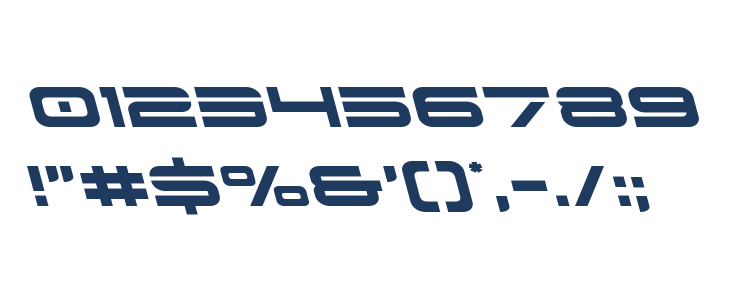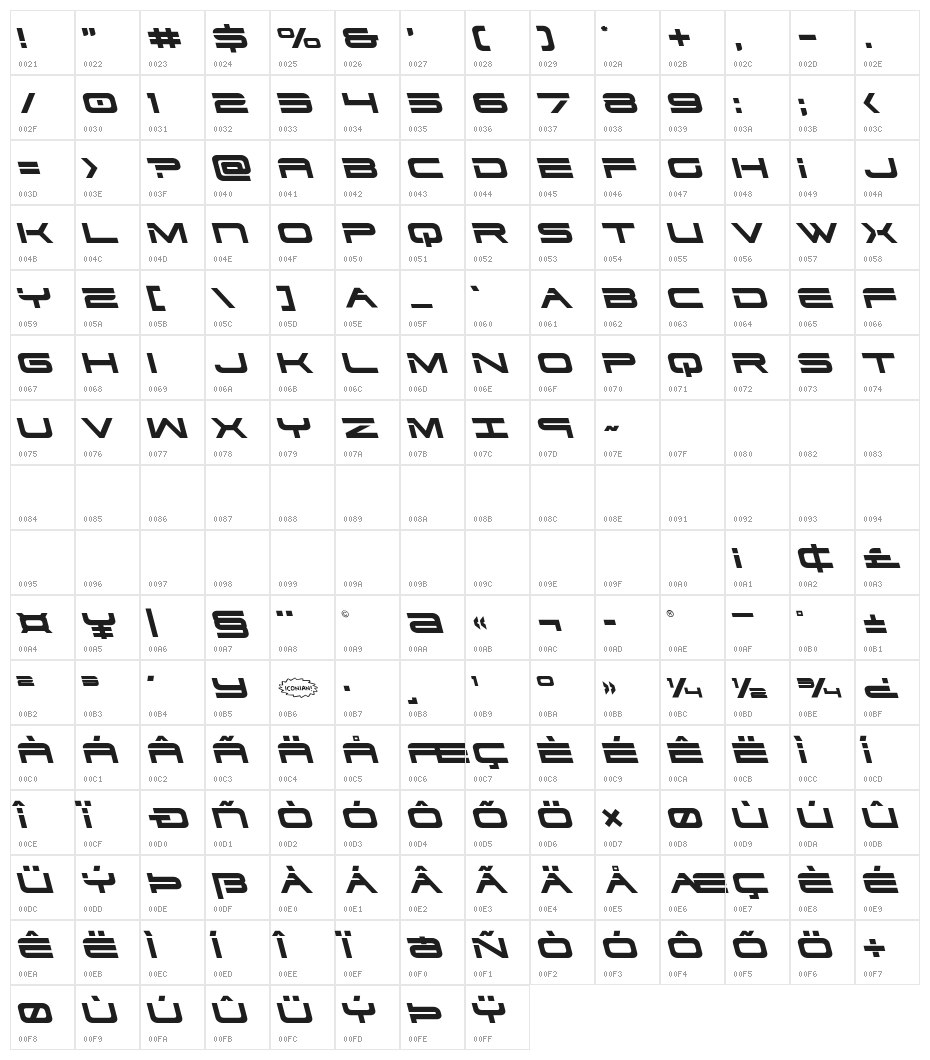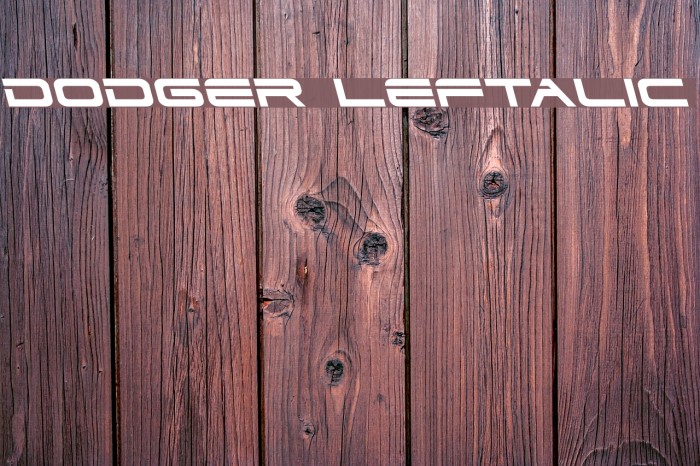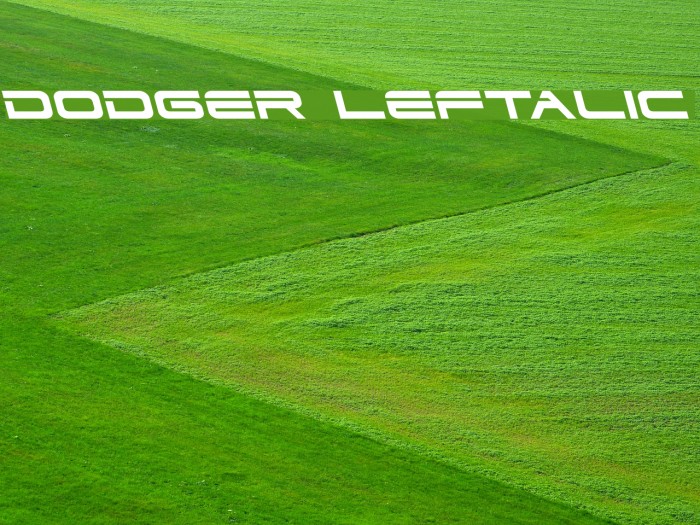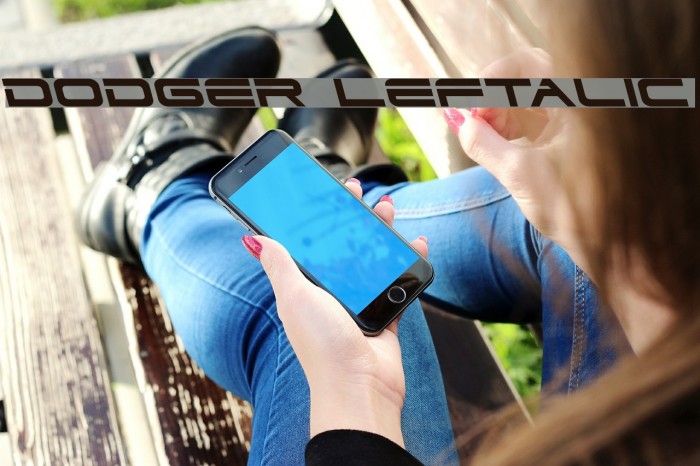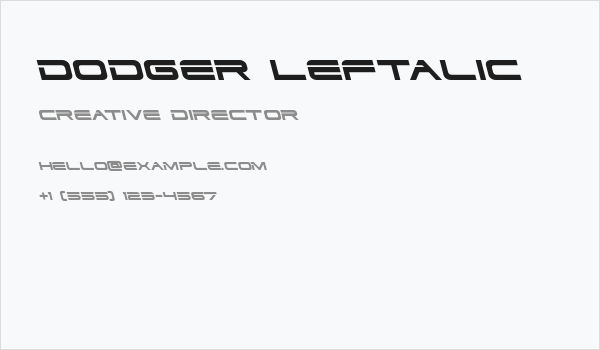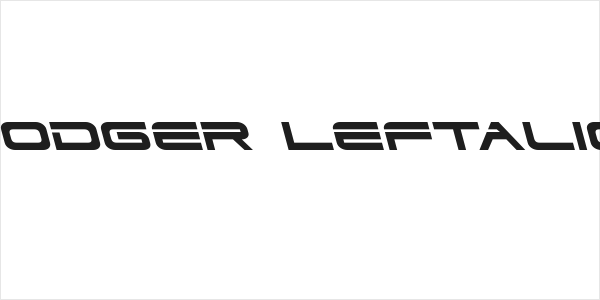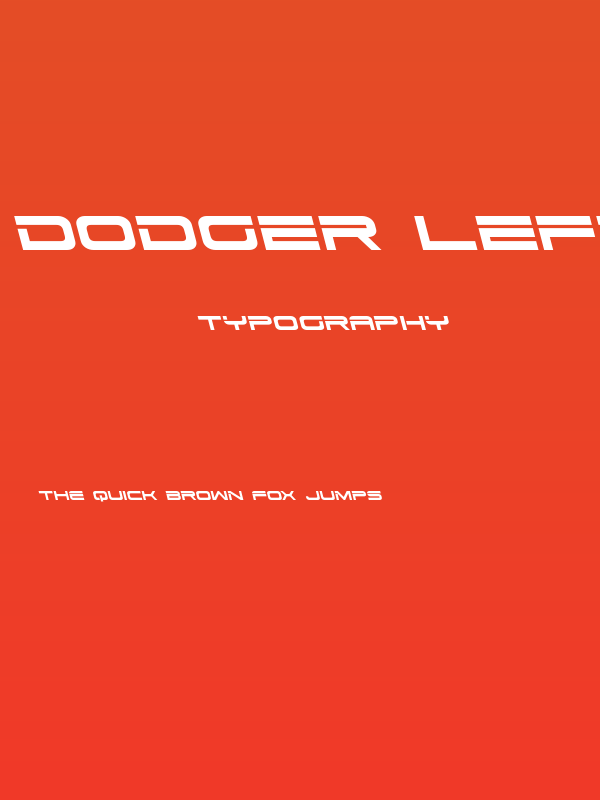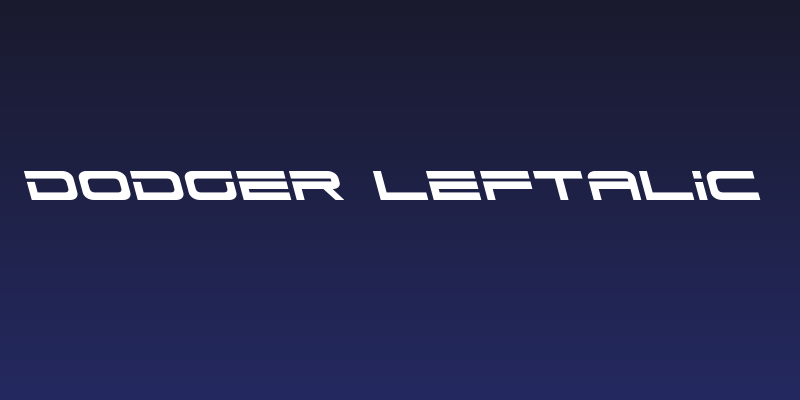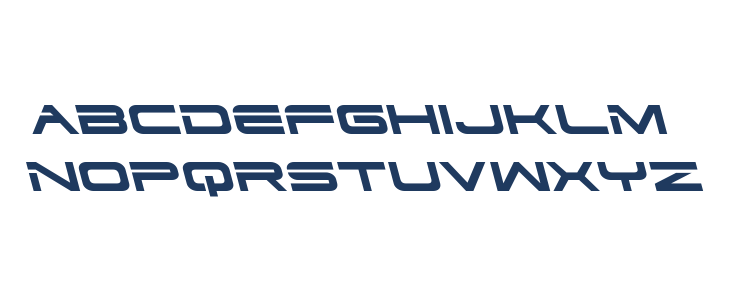
Dodger Leftalic Font
Dodger Leftalic Description
This font features a futuristic and angular design, characterized by its sharp edges and geometric shapes. The letters are slightly slanted, giving a dynamic and forward-moving appearance. The uppercase and lowercase letters maintain a consistent style, with a uniform thickness that adds to its modern aesthetic. Numbers and special characters follow the same design principles, ensuring a cohesive look across all elements. The font's unique style makes it stand out, suitable for projects that require a bold and innovative touch.
| Proposed Projects | Ideal for technology branding, sci-fi movie posters, video game titles, and modern logo designs. |